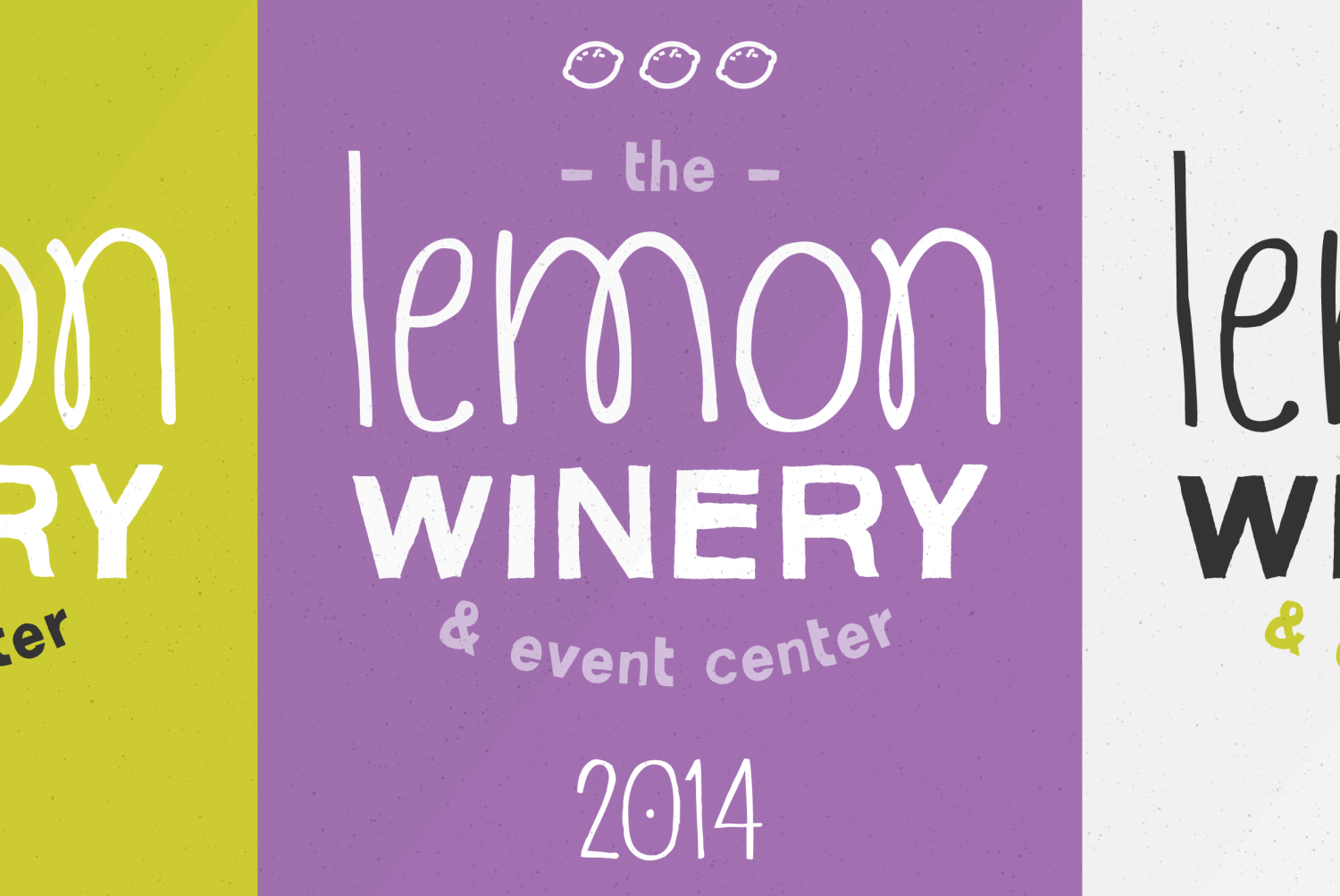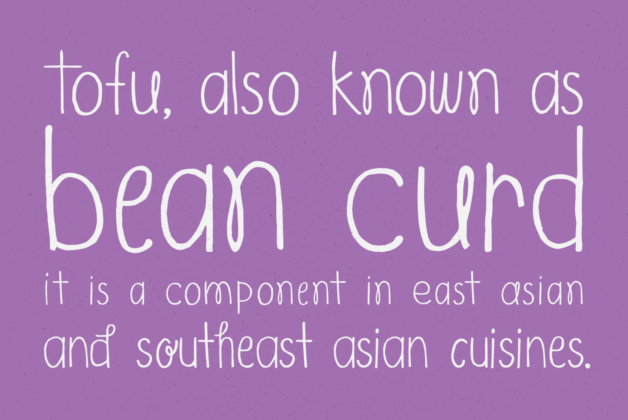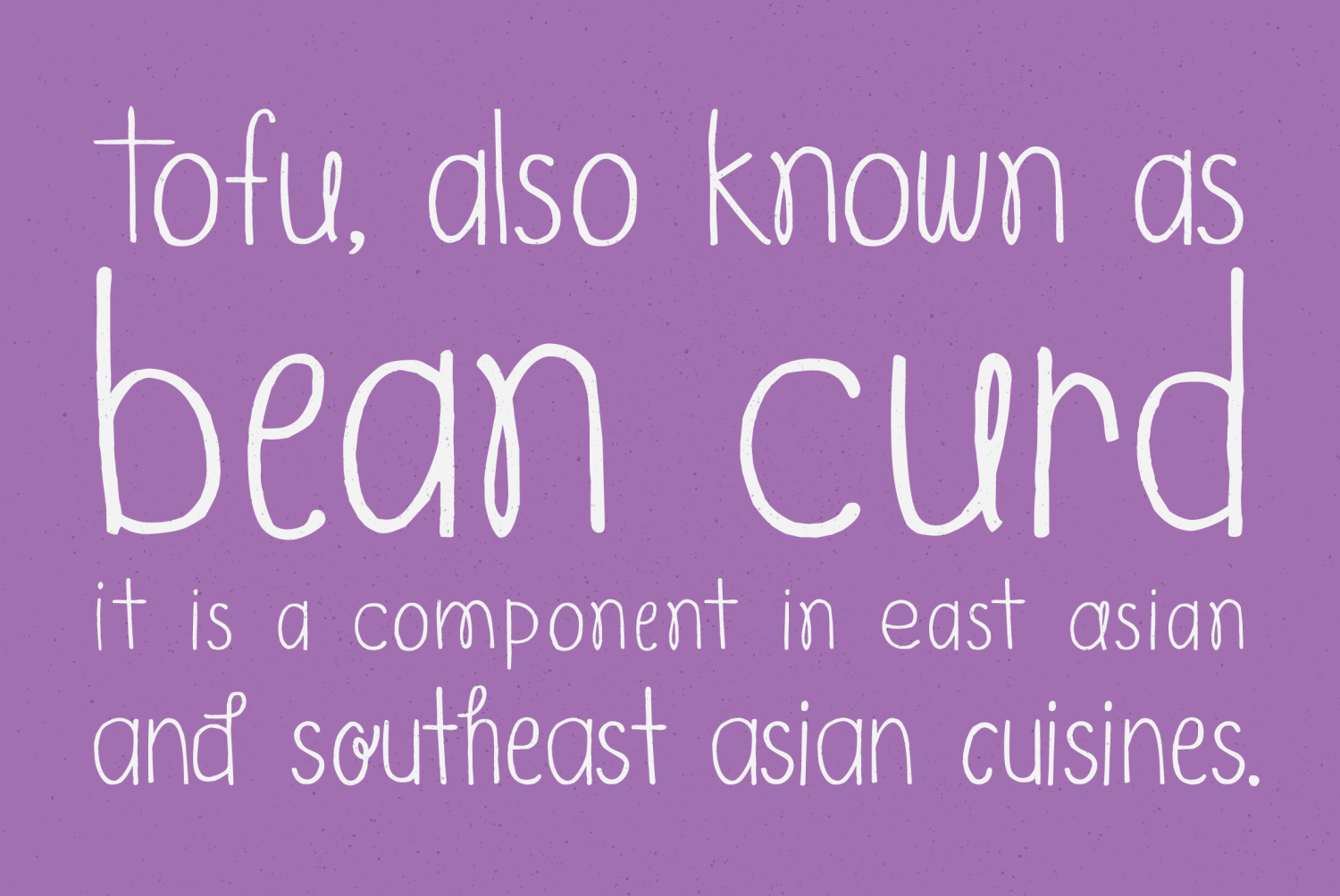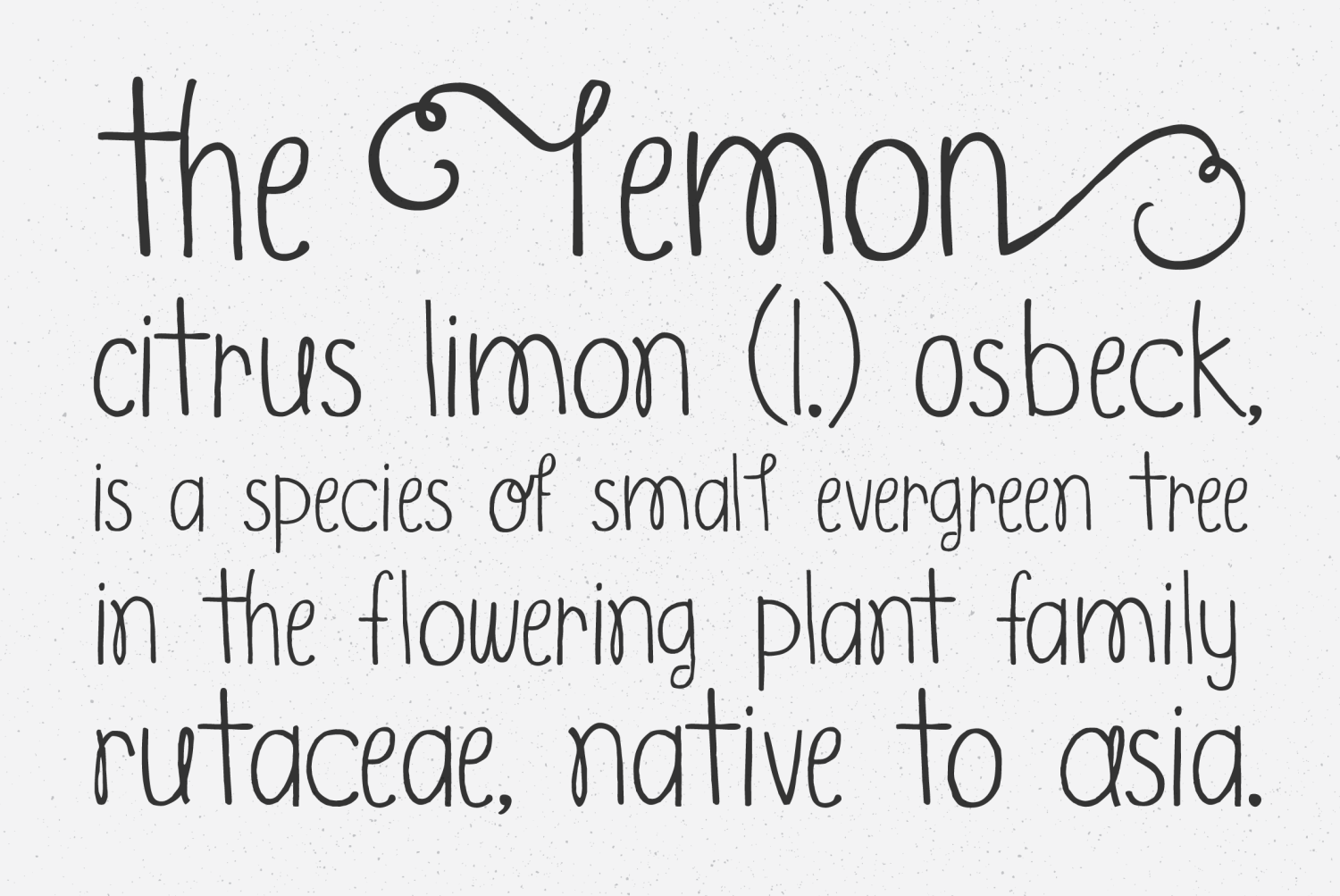
Classy and carefully drawn, Skipper comes across a bit delicate, yet full of excitement?just like that note that your crush wrote you back in middle school, in which she asked you to buy her a bottle of strawberry wine. Skipper hops, skips and loops its…